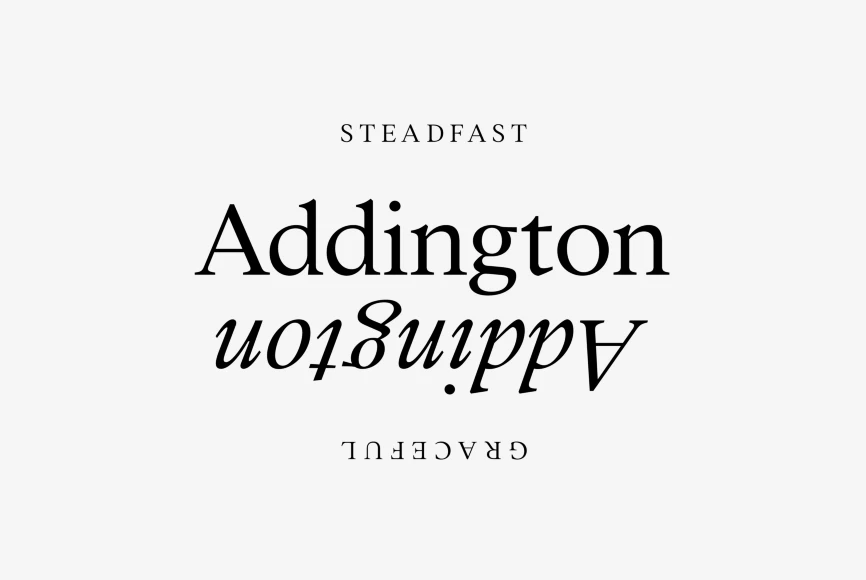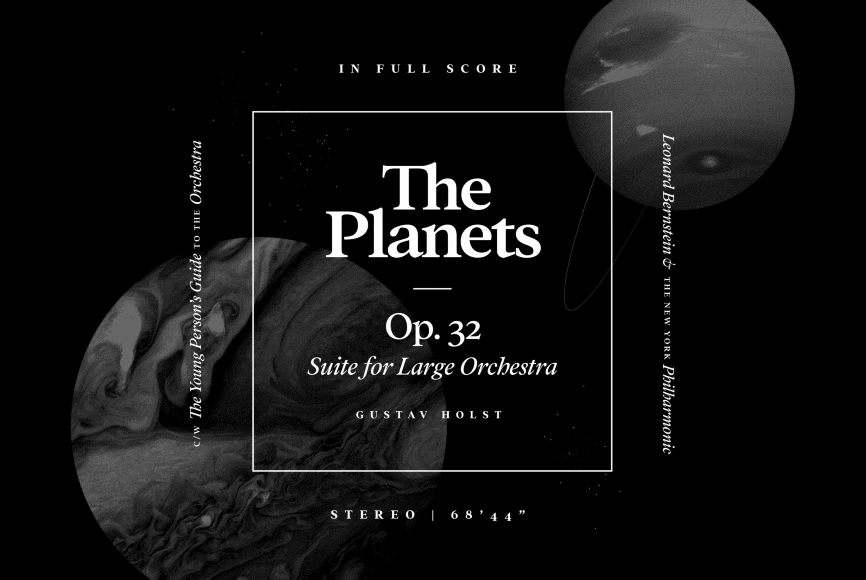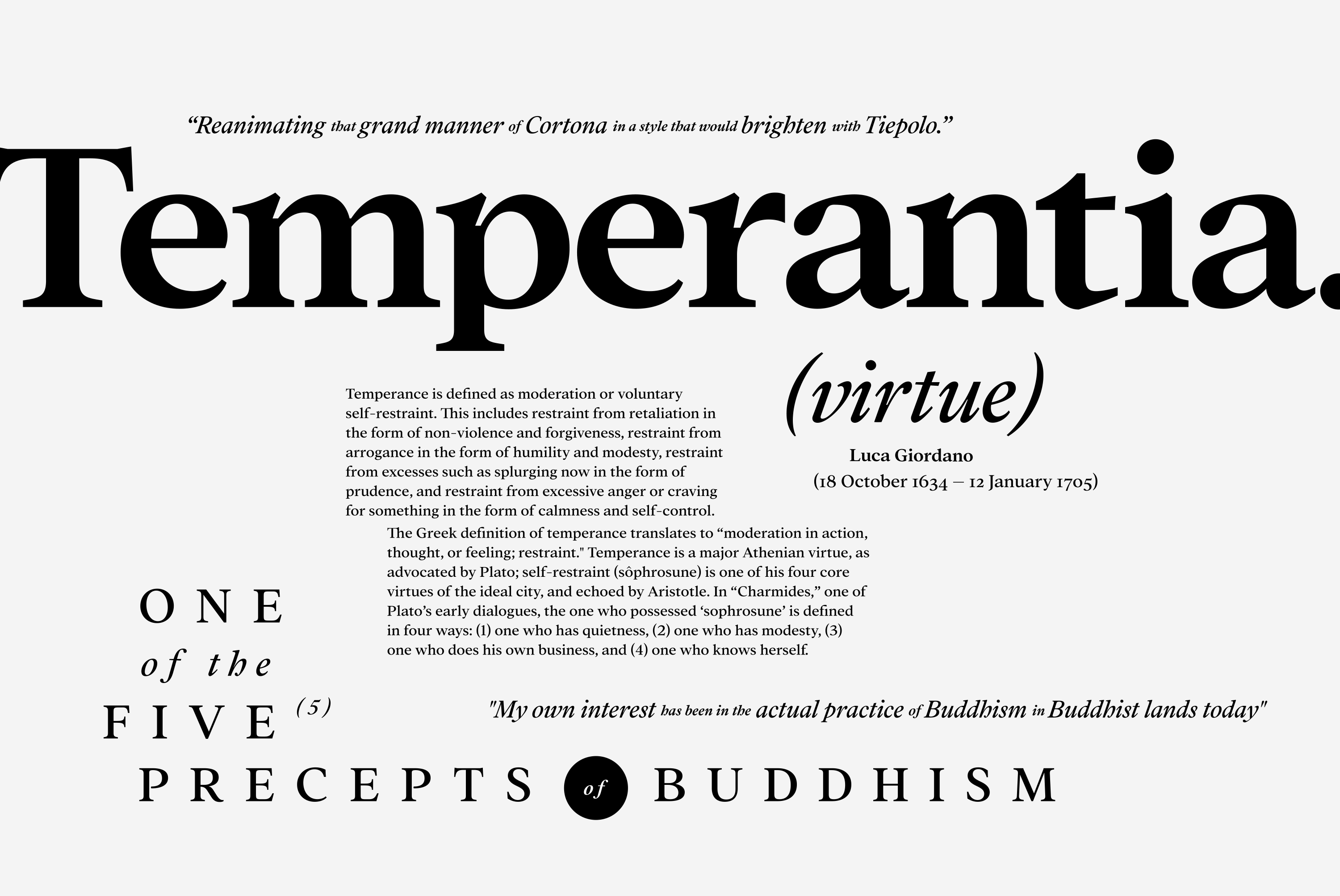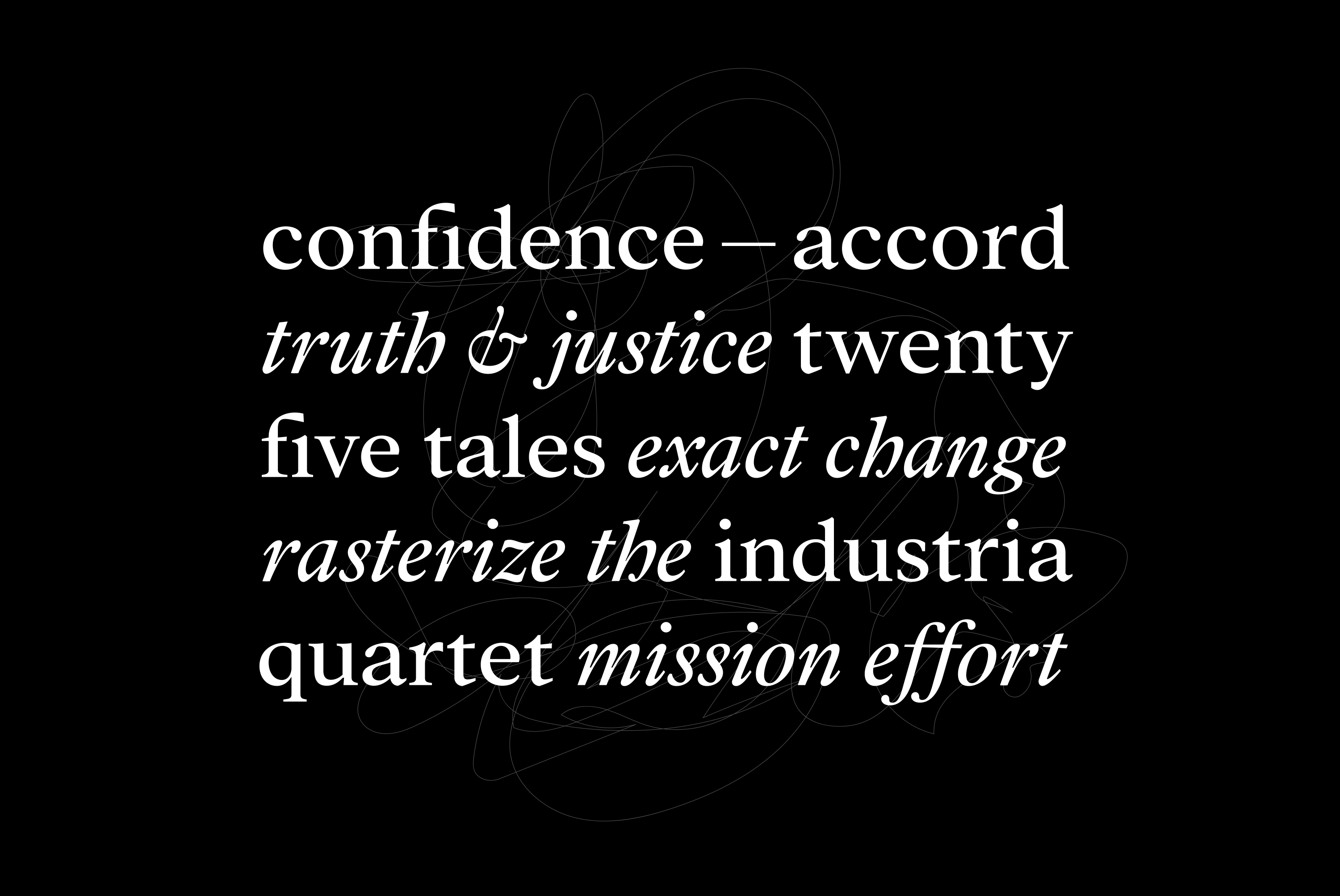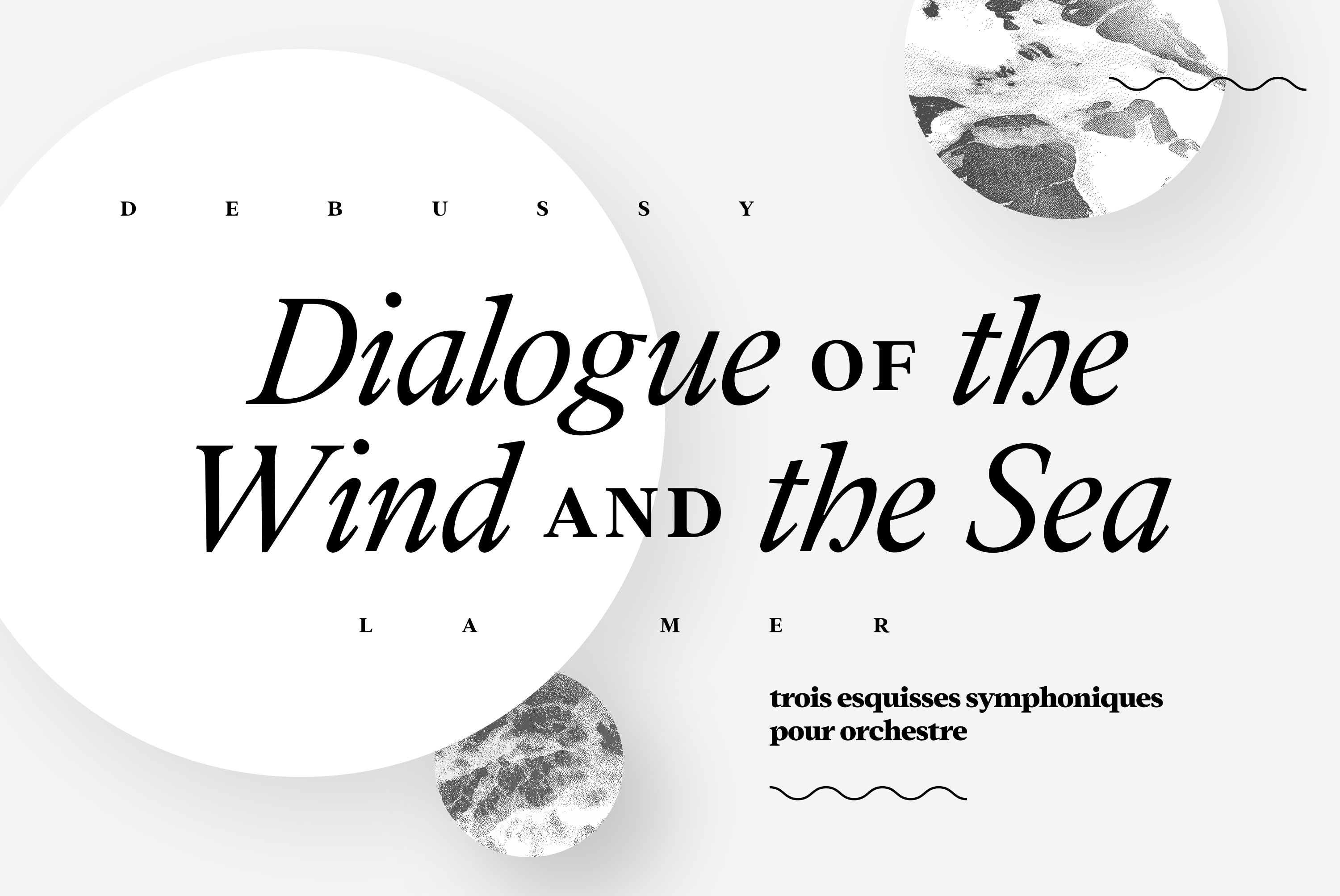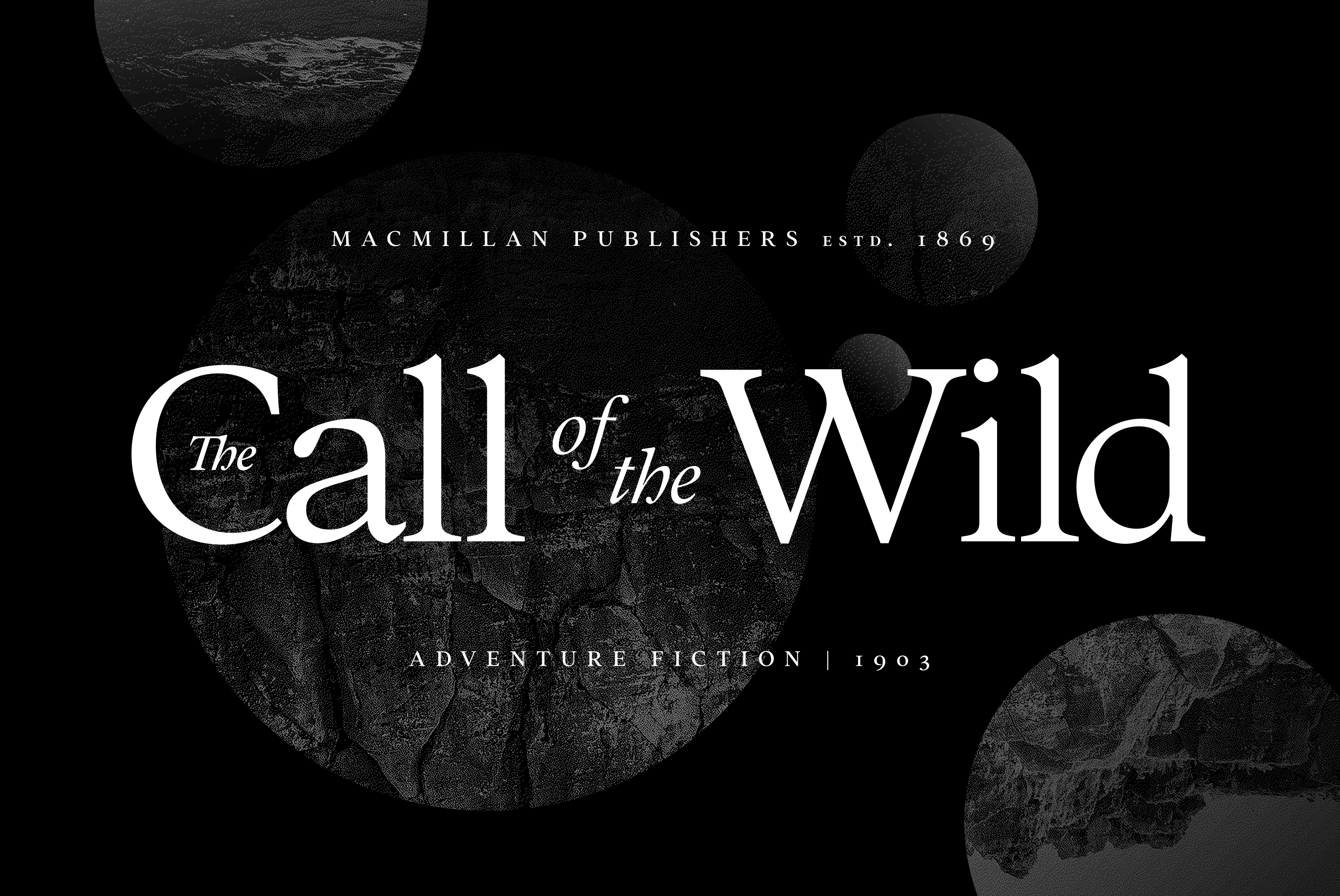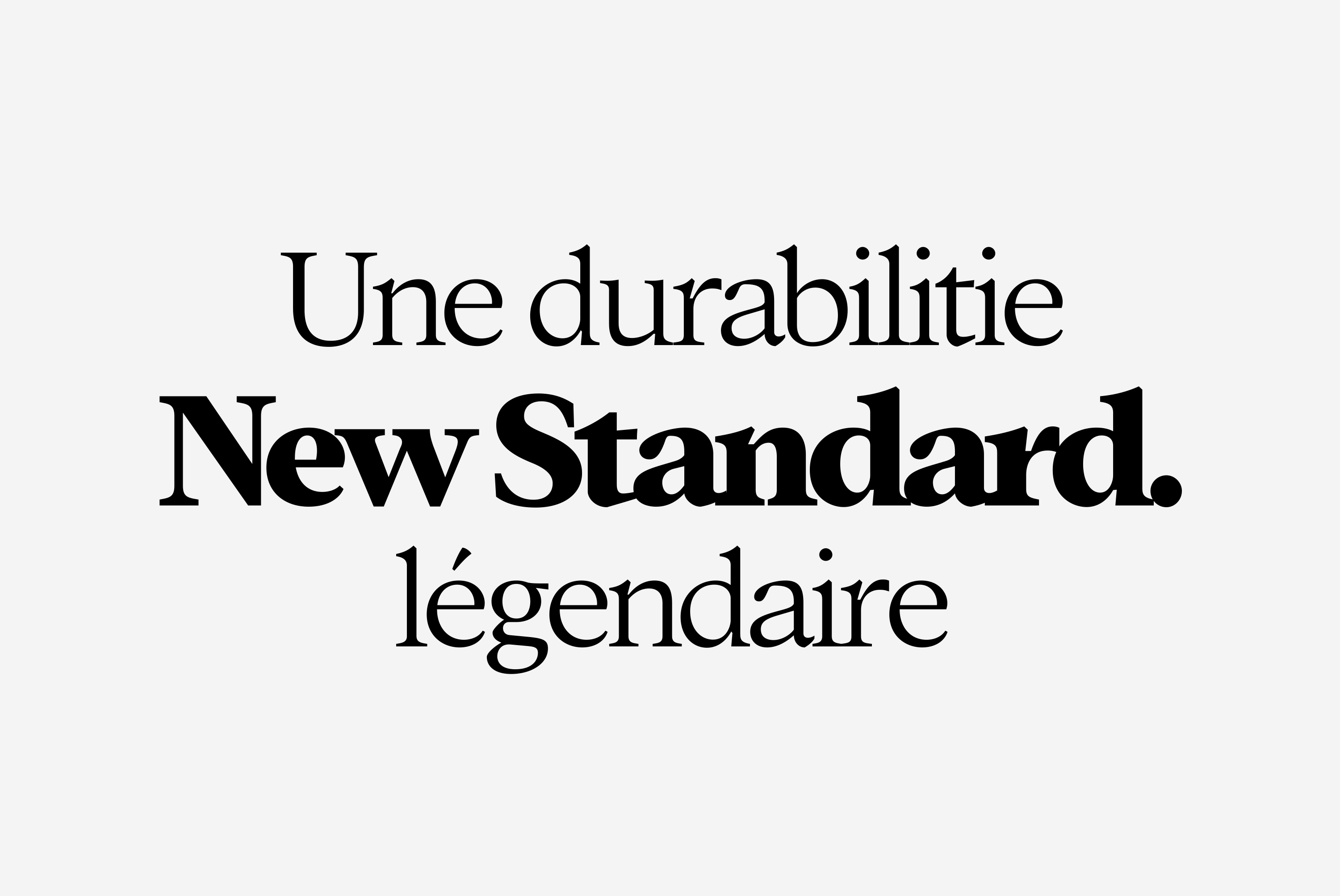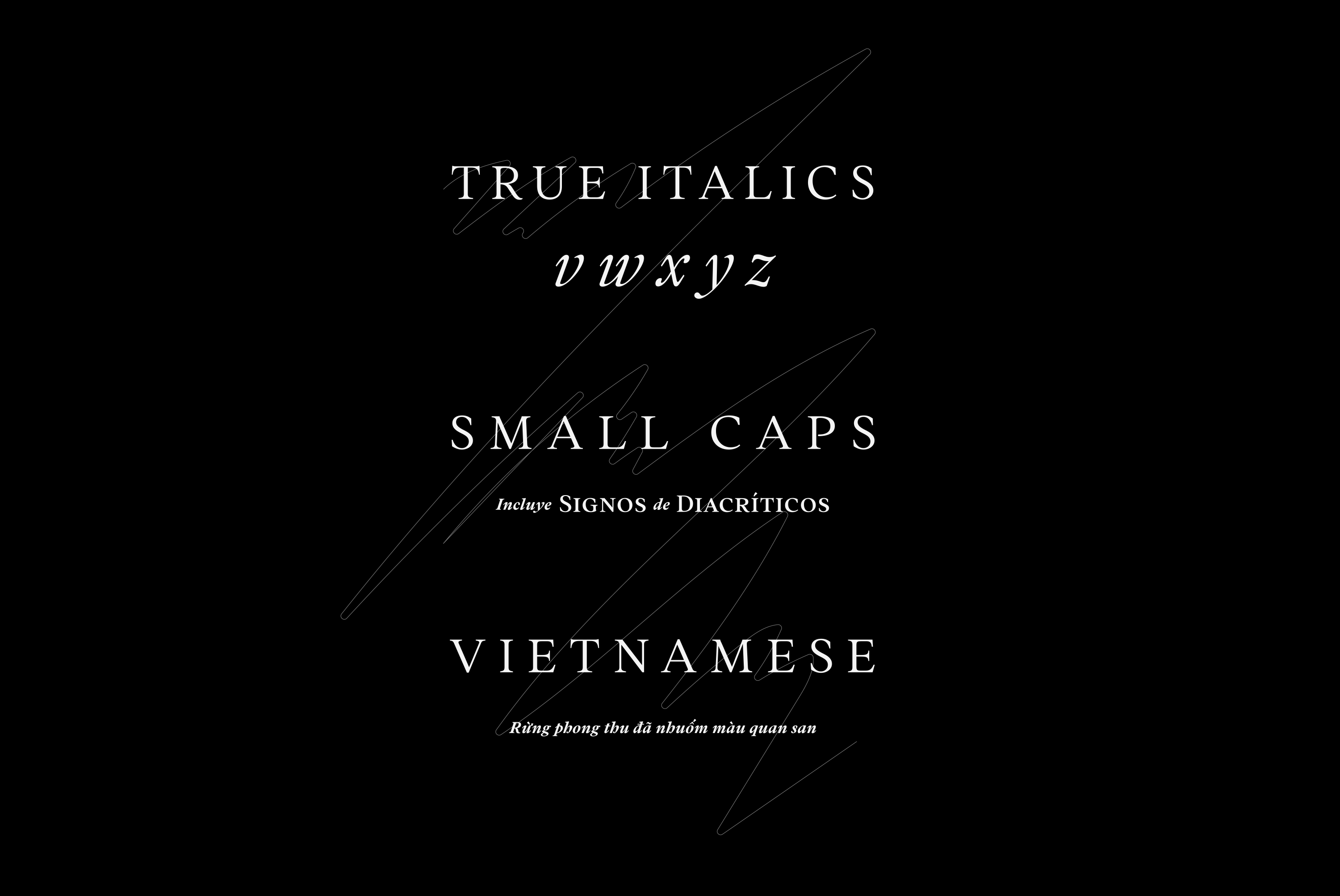
Addington
By Connary Fagen
Addington is a graceful and reliable serif, useful in any application. Beautiful while practical, Addington is designed for excellence in text-heavy settings while doubling as a capable, bold display typeface. Addington CF is a serif font family. This typeface has fourteen styles and was published by Connary Fagen Type Design.